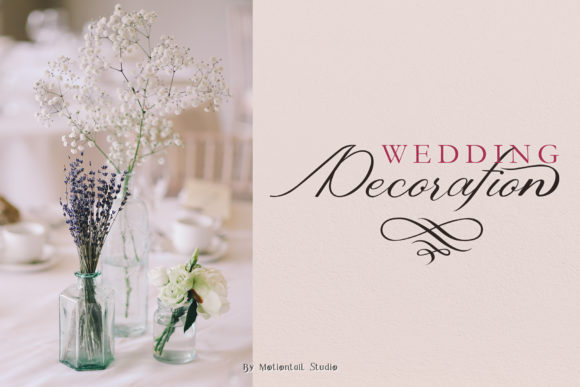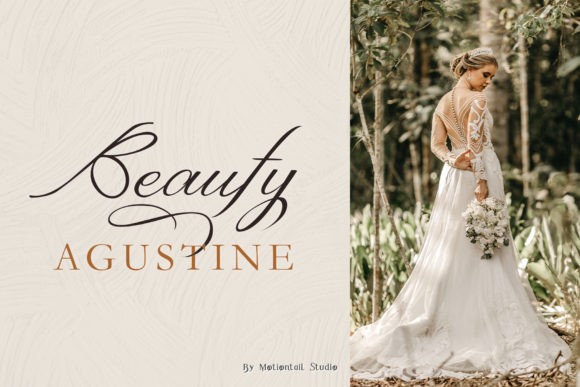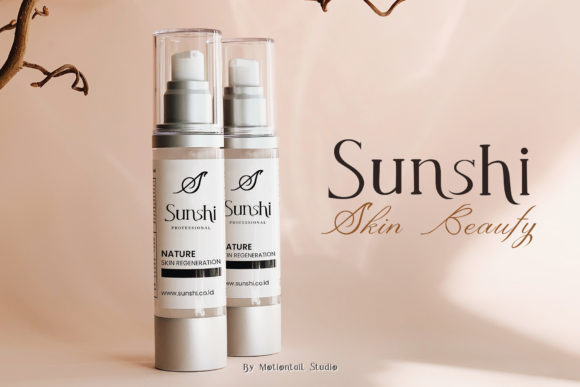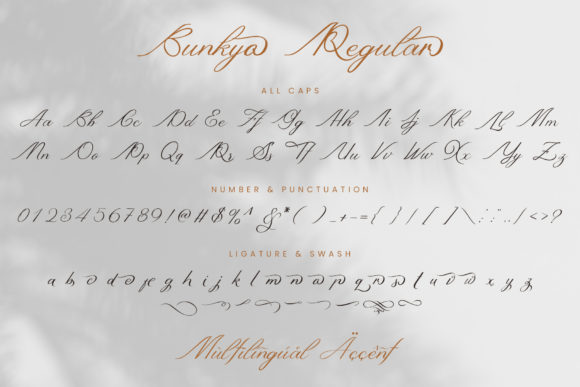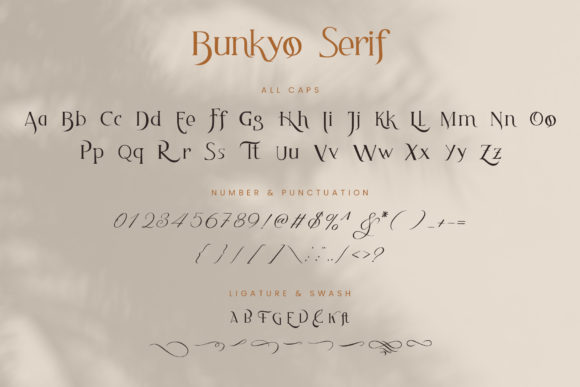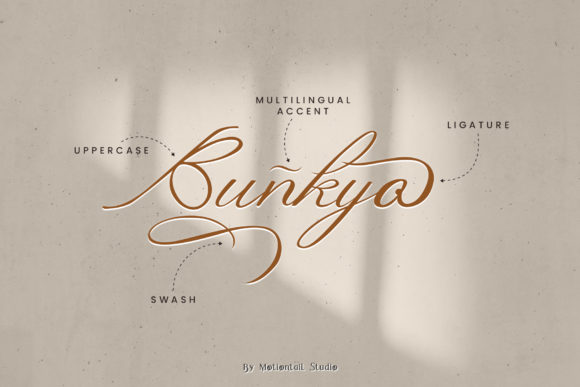
Bunkyo Font: Elevate Your Designs with Elegance and Flair
In the world of typography, fonts play a crucial role in bringing creative ideas to life. For designers and crafters, finding the perfect font can be a daunting task. However, if you’re looking for a duo font that exudes elegance, delicacy, and flow, look no further than Bunkyo Font. This beautiful font family consists of two complementary fonts – a serif and a handwritten font – that can add a touch of sophistication to your designs.
The Beauty of Bunkyo Font
Bunkyo Font is a delicate, elegant, and flowing duo font that boasts beautiful and well-balanced characters. The serif font features classic lines and curves, while the handwritten font adds a touch of whimsy and playfulness. The combination of these two fonts creates a harmonious and visually appealing contrast that can elevate your designs to new heights.
One of the standout features of Bunkyo Font is its versatility. The font duo matches a wide pool of designs, making it an excellent choice for various creative projects. Whether you’re working on a logo, brochure, website, or social media graphics, Bunkyo Font can adapt to your design style with ease. Its elegant and flowing lines make it perfect for designs that require a touch of sophistication, while its playful handwritten font can add a dash of personality to your work.
Why Choose Bunkyo Font?
So, why should you choose Bunkyo Font for your next design project? Here are just a few reasons:
- Elegant and Refined: Bunkyo Font’s serif and handwritten fonts exude elegance and refinement, making it perfect for designs that require a touch of sophistication.
- Versatile: The font duo can be used in a wide range of designs, from logos and brochures to websites and social media graphics.
- Well-Balanced Characters: Bunkyo Font features beautiful and well-balanced characters that create a harmonious and visually appealing contrast.
- Adds Personality: The handwritten font adds a touch of personality and whimsy to your designs, making them stand out from the crowd.
How to Use Bunkyo Font
- Pair the Fonts: Pair the serif and handwritten fonts to create a beautiful contrast that adds visual interest to your designs.
In conclusion, Bunkyo Font is a beautiful duo font that can elevate your designs to new heights. Its elegant and flowing lines, well-balanced characters, and versatility make it an excellent choice for designers and crafters. Whether you’re working on a logo, brochure, website, or social media graphics, Bunkyo Font can add a touch of sophistication and personality to your designs. So, why not give it a try and see how it can bring your creative ideas to life?